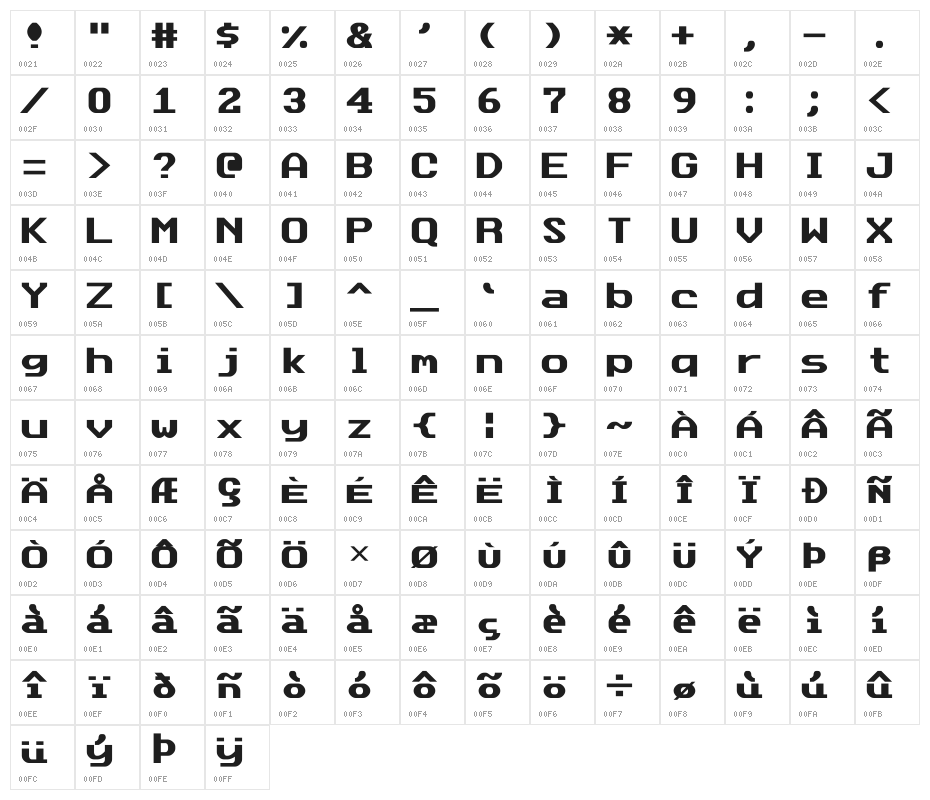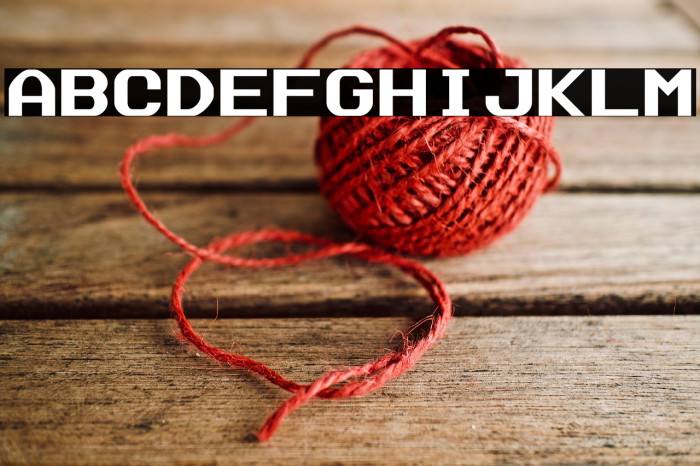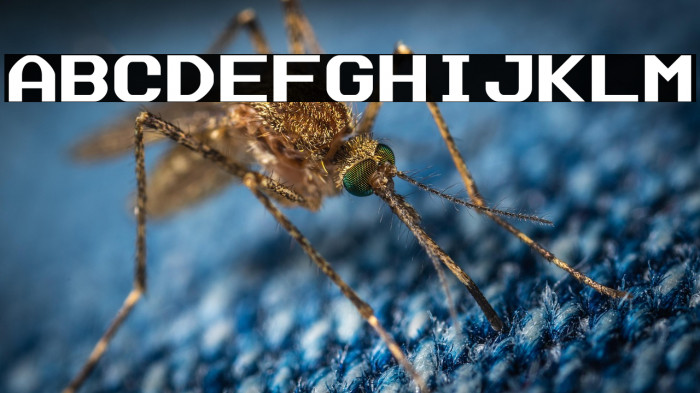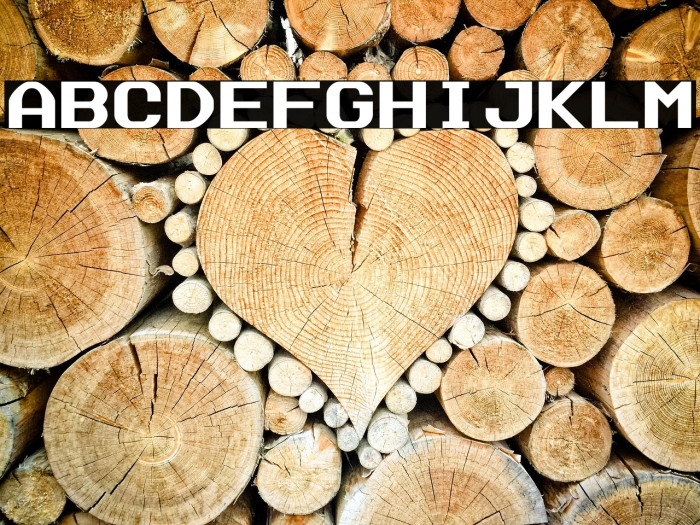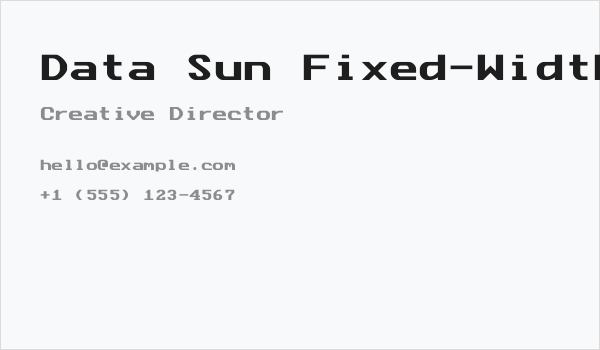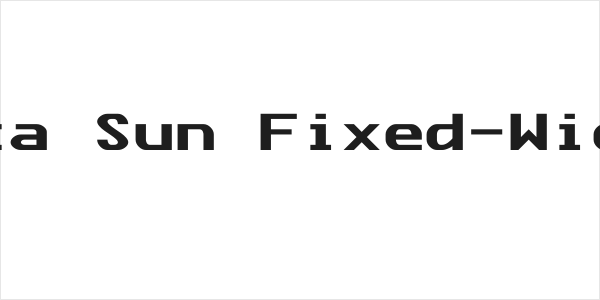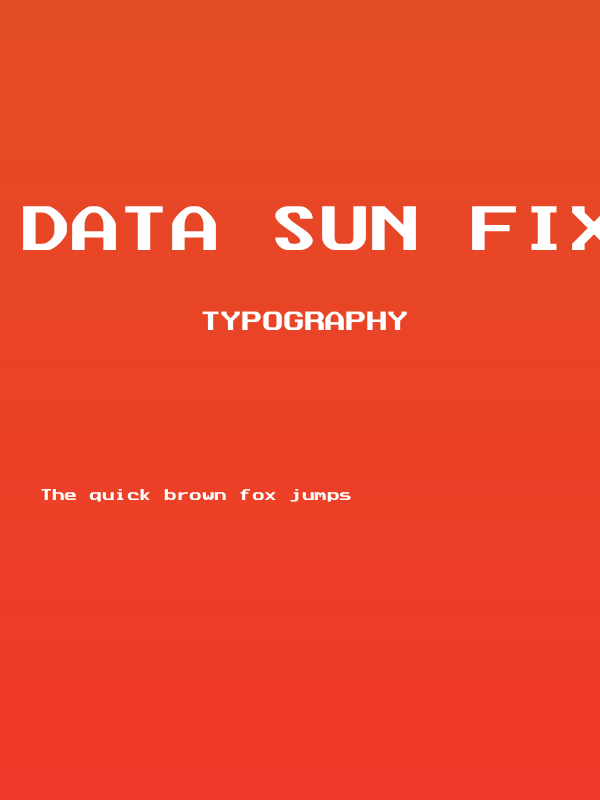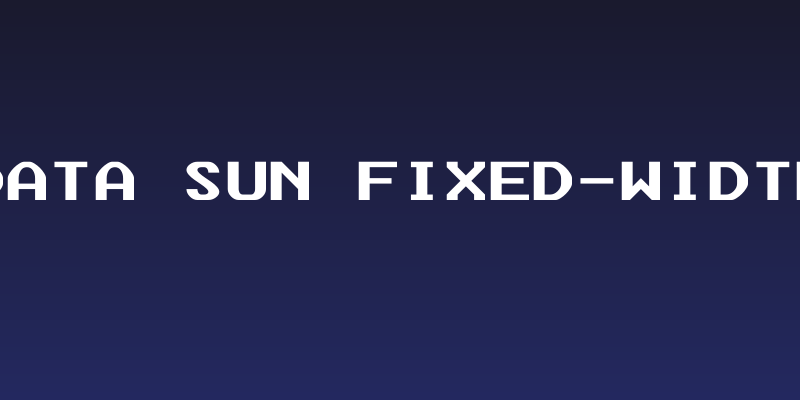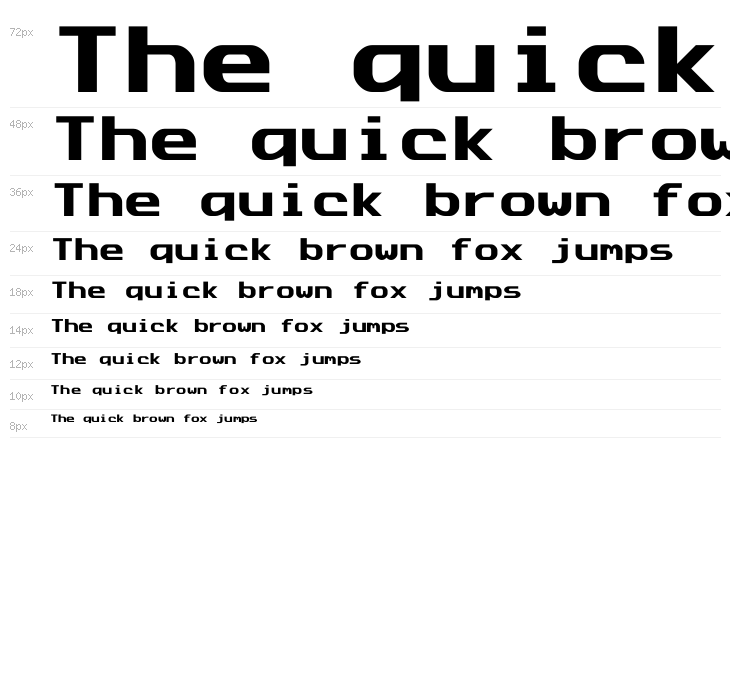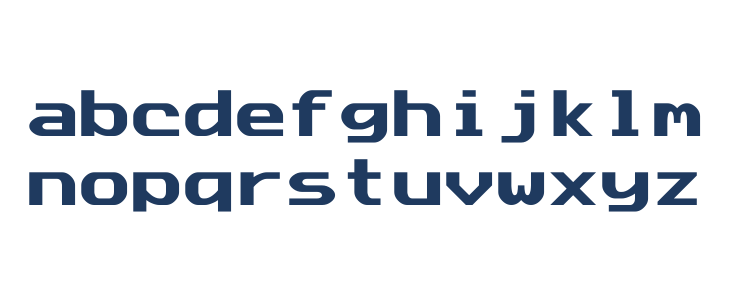
Data Sun Fixed-Width Font
Data Sun Fixed-Width Description
This font features a monospaced design, characterized by its uniform width across all characters. The letters exhibit a geometric and mechanical appearance, with straight lines and sharp angles dominating the design. The uppercase and lowercase letters maintain a consistent height, contributing to a clean and orderly look. The numerals and special characters follow the same structured style, ensuring readability and clarity. This font's simplicity and precision make it suitable for technical and digital applications, where clarity and uniformity are paramount.
| Use Case | Technical documentation, Coding, Digital displays |
| Proposed Projects | Ideal for coding environments, technical documentation, and digital displays where uniformity and clarity are essential. |